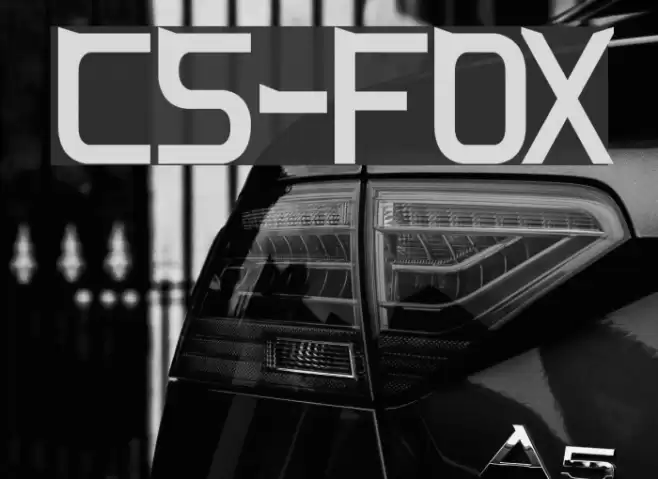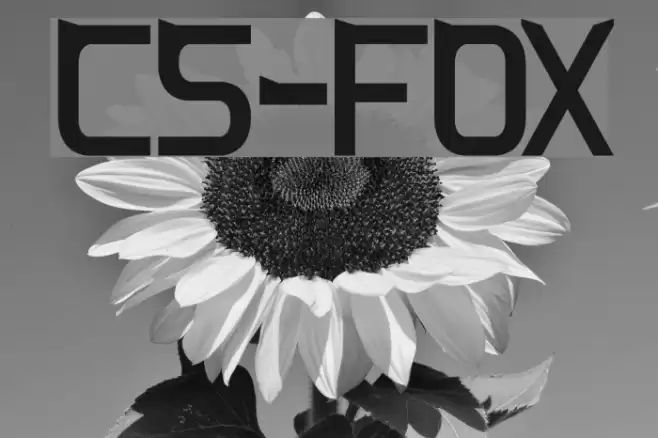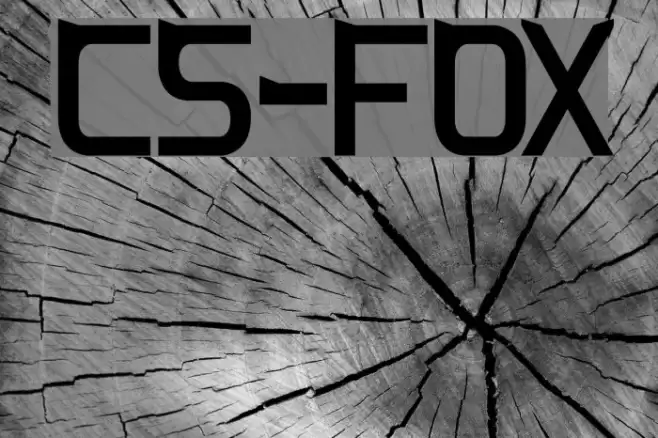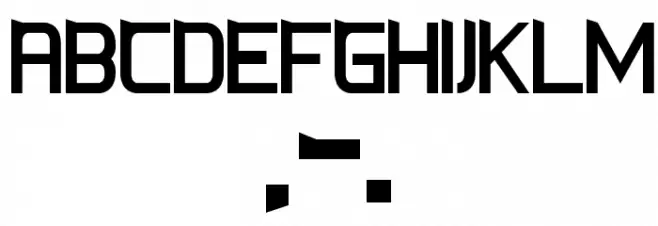
CS-Fox Font
CS-Fox Description
This font features a bold and geometric design, characterized by its sharp angles and clean lines. The uppercase letters are distinct with a futuristic and technical appearance, making it stand out in any design. The characters are uniformly wide, contributing to a balanced and cohesive look. The font's style is reminiscent of digital or sci-fi themes, with a modern twist that adds a unique flair to any project. Its boldness ensures high visibility, making it suitable for attention-grabbing headlines or logos. The consistent stroke width across all characters provides a uniform and structured aesthetic, enhancing its modern appeal.
A bold, geometric font with a futuristic and technical design from Uncategorized fonts.
- Proposed Projects: Ideal for tech-related branding, sci-fi posters, video game titles, and modern digital interfaces.